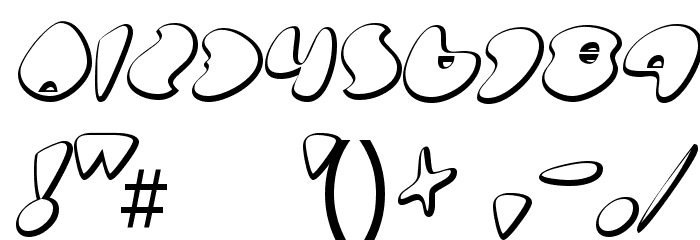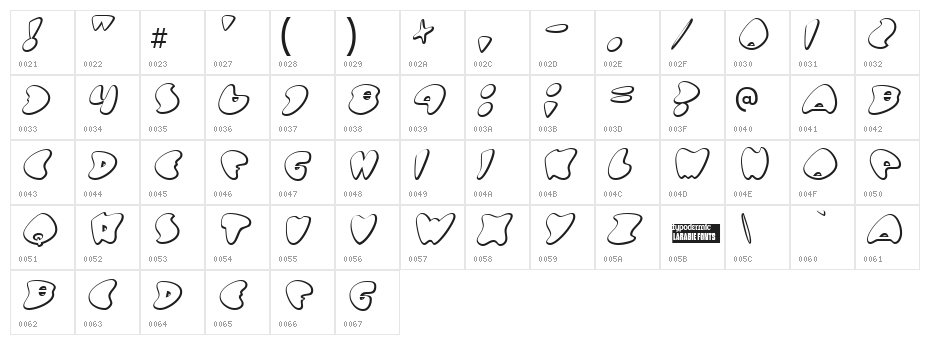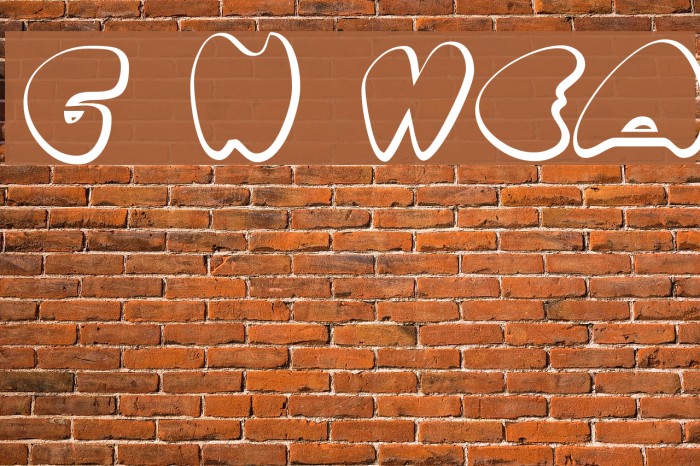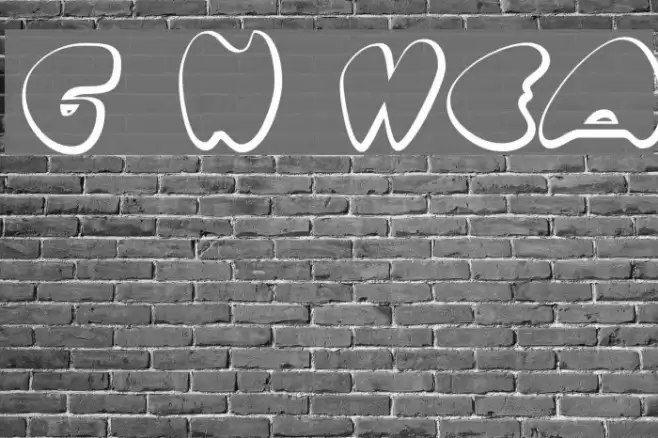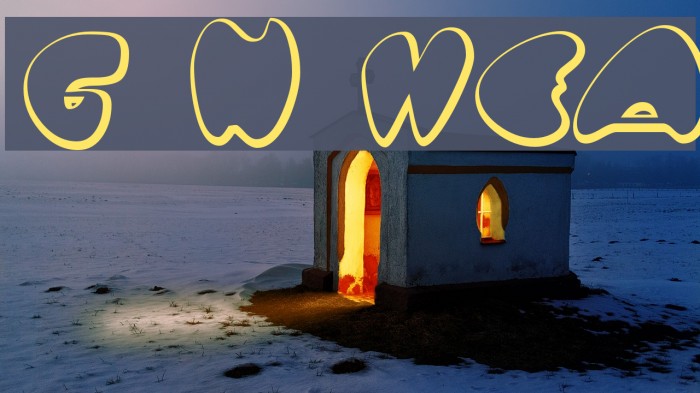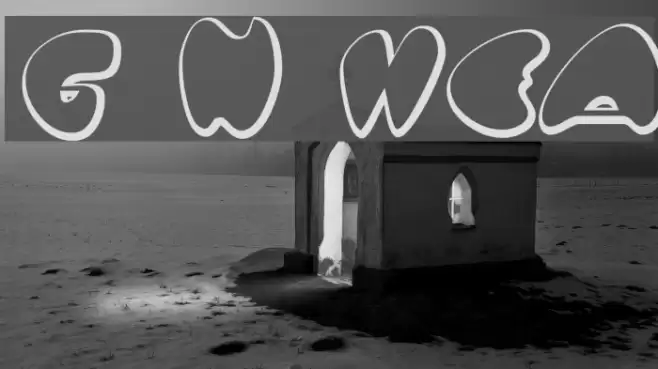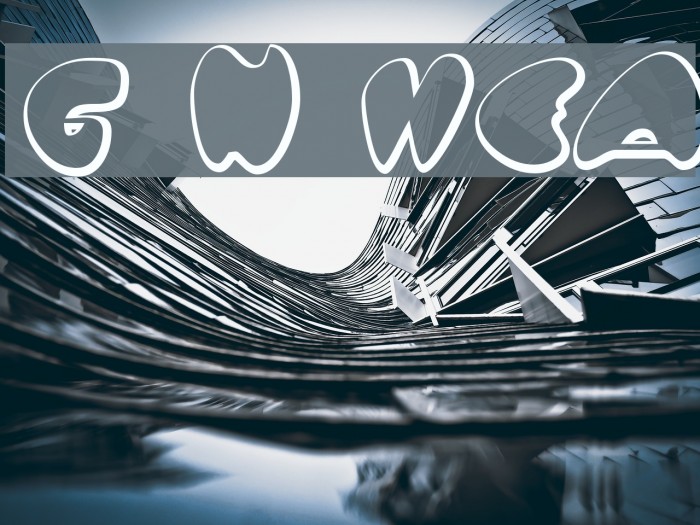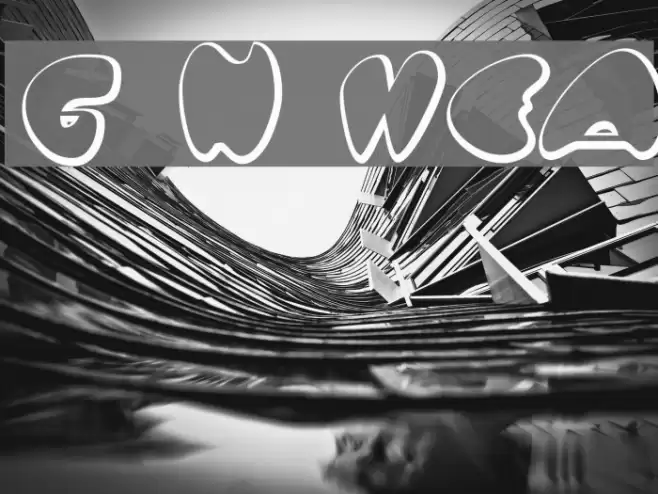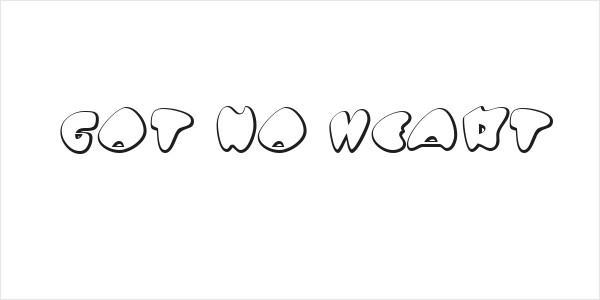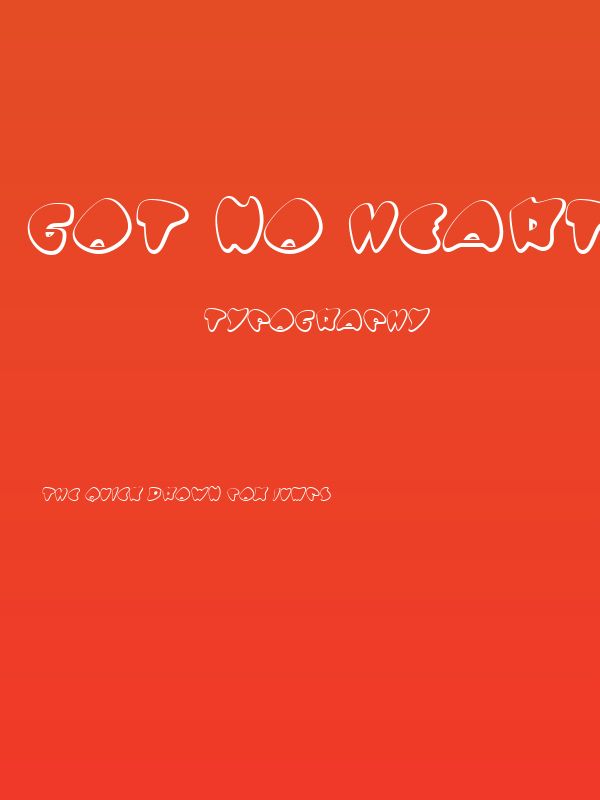
Got No Heart Font
Got No Heart Description
This playful and whimsical font features bold, rounded characters with a unique, heart-like design element integrated into each letter. The strokes are thick and consistent, creating a bubbly and friendly appearance. The characters are slightly irregular, adding to the casual and fun aesthetic. The font includes both uppercase and lowercase letters, numbers, and a selection of special characters. Its distinct style makes it stand out, perfect for projects that require a touch of creativity and lightheartedness.
| Proposed Projects | Ideal for children's books, greeting cards, playful branding, and party invitations. |